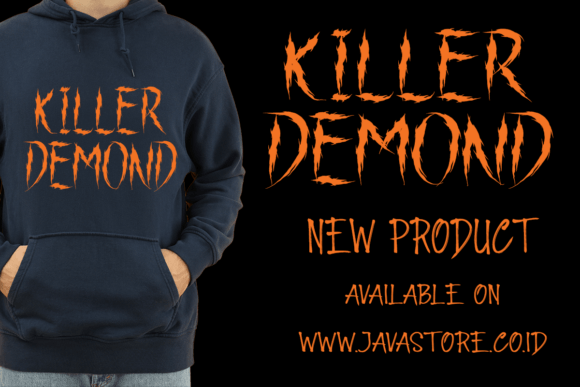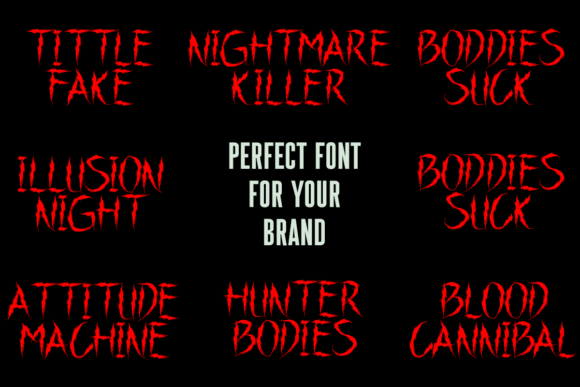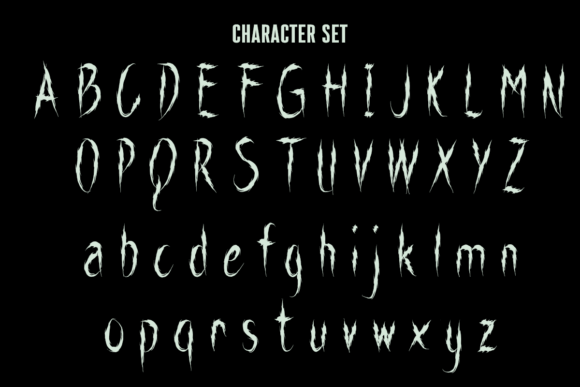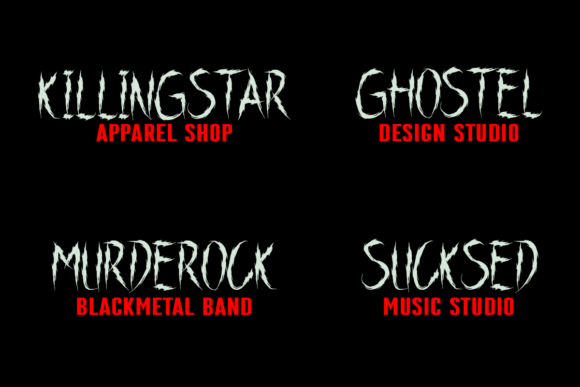
Introducing Brutal Wings Font: Embody the Unyielding Force of Death Metal Typography
Prepare to unleash unrelenting chaos with Brutal Wings Font, a font forged in the fiery depths of the death metal underworld. Inspired by the relentless intensity and savage energy of the genre, this font is a testament to brutality in its purest form. As a designer or crafter, you’re likely no stranger to the world of typography, but Brutal Wings Font is something entirely different. It’s a call to arms, a battle cry that echoes through the hallowed halls of metal music and beyond.
The Birth of Brutal Wings Font
Death metal, as a genre, is known for its aggressive tempo, complex song structures, and often growling or screaming vocals. The visual aspect of death metal – album artwork, band logos, and merchandise – frequently mirrors this sonic brutality. It’s here, within this intense and unforgiving world, that Brutal Wings Font was born. Crafted with precision and a keen eye for detail, this font embodies the spirit of death metal typography, translating its raw energy into a digital format that’s both versatile and unapologetically bold.
So, what makes Brutal Wings Font stand out from the myriad of typefaces available today? The answer lies in its design characteristics, meticulously crafted to reflect the essence of death metal:
- Aggressive Lines and Shapes: Brutal Wings Font features sharp, jagged lines and irregular shapes that evoke a sense of chaos and disorder, perfectly capturing the aggressive nature of death metal.
- Heavy Distressing: The font includes various distressing effects, such as cracks, cuts, and a general worn-out appearance, giving it a battle-hardened look that’s reminiscent of well-worn metal gear.
- Legibility and Versatility: Despite its brutal appearance, the font maintains a surprising level of legibility, making it suitable for a wide range of applications, from album titles and band logos to merchandise and promotional materials.
Applications of Brutal Wings Font
Brutal Wings Font is more than just a novelty for metalheads; it’s a versatile tool for designers and crafters looking to add an edge to their projects. Here are a few ways you can utilize this powerful font:
- Music and Merchandise: Perfect for creating album artwork, band merchandise, or promotional materials for metal bands and events.
- Branding and Advertising: Use Brutal Wings Font to add a bold, aggressive touch to branding and advertising projects that require a strong visual impact.
- Digital Content: Enhance your digital content, such as video game titles, movie posters, or blog headers, with a font that commands attention.
Why Choose Brutal Wings Font?
In a digital world flooded with generic fonts, Brutal Wings Font offers something unique – a typographic voice that’s loud, clear, and uncompromising. Here are a few reasons why designers and crafters are gravitating towards this powerful typeface:
- Uniqueness: Stand out from the crowd with a font that breaks the mold of traditional typography.
- Expressive Freedom: Brutal Wings Font gives you the tools to express the raw energy and emotion of your project, whether it’s for a metal band or any client looking for that extra edge.
- Community and Culture: By choosing Brutal Wings Font, you’re not just selecting a typeface; you’re embracing a culture and community that values intensity, authenticity, and self-expression.
Brutal Wings Font is more than just a font – it’s a statement. It’s a declaration of independence, a refusal to be ordinary, and a celebration of the unyielding force that drives creativity and expression. Whether you’re a designer, crafter, or simply someone who appreciates the raw power of death metal typography, Brutal Wings Font invites you to unleash your inner chaos and bring your projects to life with unrelenting intensity. So, prepare to take your designs to the next level with a font that embodies the true spirit of brutality and beauty.